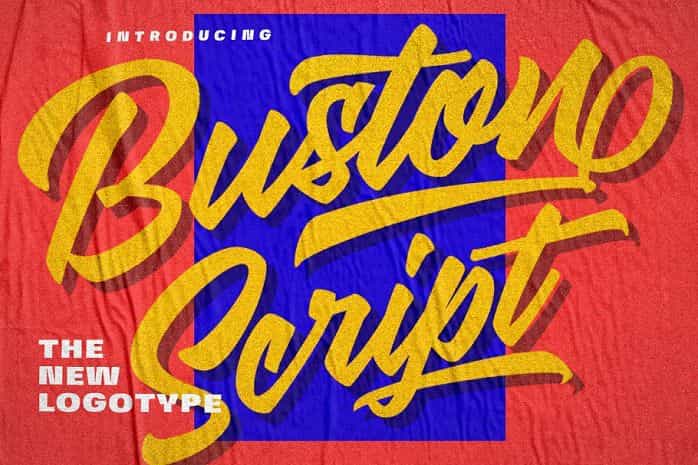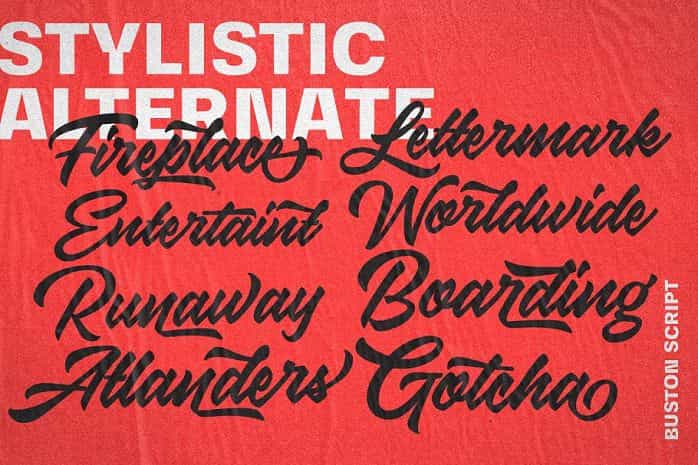
Introducing Buston Font. The Buston was inspired by the life style and had a trendy typography. I’m using my Hand Lettering style together with the typeface. Each and every curve is touched with personality in the design. and a very bouncy baseline It is perfectly combined with the marker font, and also has an excellent set of bonus Swash. Perfect for logos, handwritten quotes, product packaging, headers, posters, merchandise and social media & greetings.